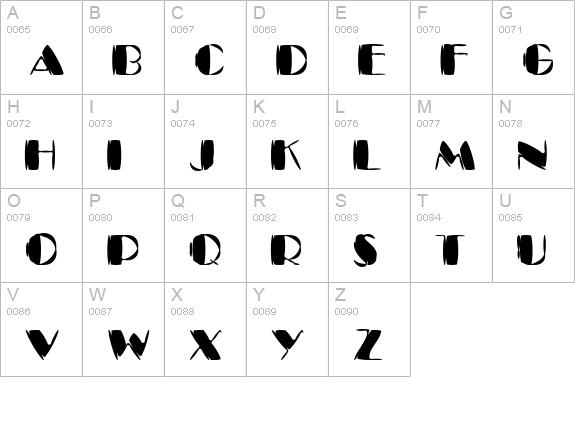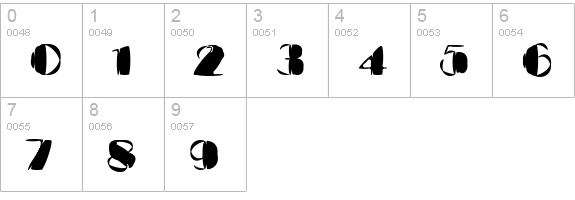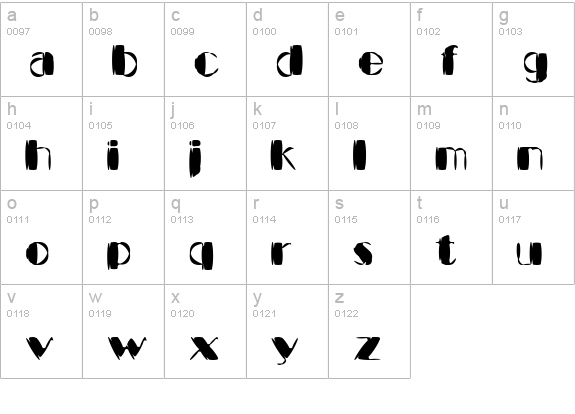
Kaptain Kurk Font Details
Introducing Kaptain Kurk font, a captivating and versatile typeface that will take your designs to new heights. This unique font combines modernity with a touch of vintage charm, making it perfect for a wide range of creative projects. With its bold and distinctive letterforms, Kaptain Kurk font commands attention and adds a sense of authority to any design. Whether you're creating eye-catching headlines, stylish logos, or stunning posters, this font is sure to make a lasting impression. But what sets Kaptain Kurk font apart from the rest is its accessibility. We believe that great design should be available to everyone, and that's why Kaptain Kurk font is offered free of charge. Yes, you heard it right, this remarkable font can be freely downloaded at FontsMarket.com. By offering Kaptain Kurk font for free, we aim to empower designers, students, and enthusiasts alike to explore their creativity without any limitations. Now you can enhance your projects with a professional-looking font without breaking the bank. So, what are you waiting for? Head over to FontsMarket.com and grab your copy of Kaptain Kurk font today. Unleash your creativity and let this stunning typeface elevate your designs to the next level.